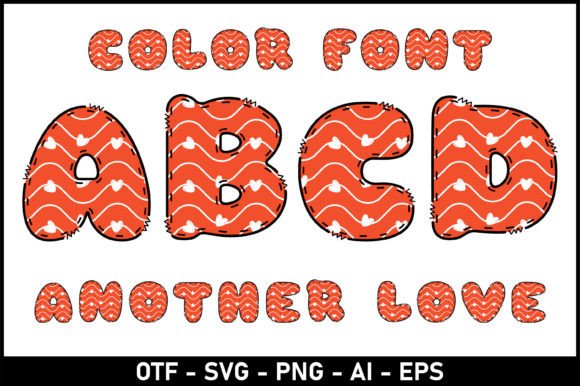
Unleash your creativity and let your designs dance with joy using the enchanting Another Love Font, a colorful font family that's perfect for capturing the innocence and wonder of childhood. Designed by Veil, these fonts are a symphony of playful lines and vibrant hues, expertly crafted to evoke a sense of magic and imagination.
With Another Love Font, you'll have an endless palette of possibilities at your fingertips. Create eye-catching posters that ignite the imagination, design invitations that transport your guests to a whimsical wonderland, or craft greeting cards that burst with warmth and cheer. This font family is your passport to a world where creativity knows no bounds.
Dive into the world of children's books and let Another Love Font guide you. Its whimsical and colorful characters will captivate young readers, creating an immersive experience that brings stories to life. The easy-to-read design ensures that every word dances off the page, making reading an absolute delight.
Another Love Font is more than just a font; it's an experience that ignites the imagination and sparks a childlike wonder in all who behold it. Don't miss out on this opportunity to add a touch of magic to your designs. Embrace Another Love Font today and let your creativity soar!